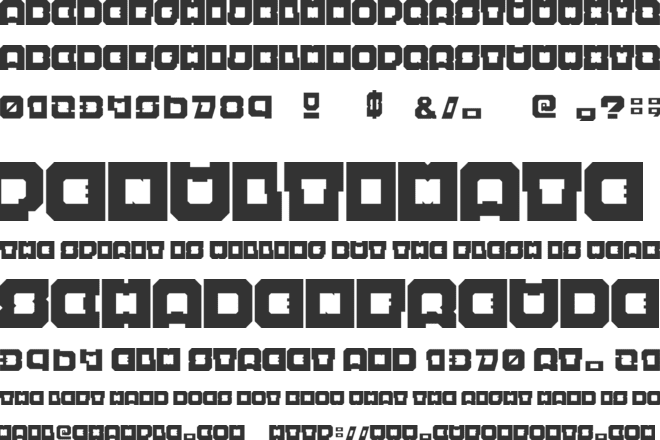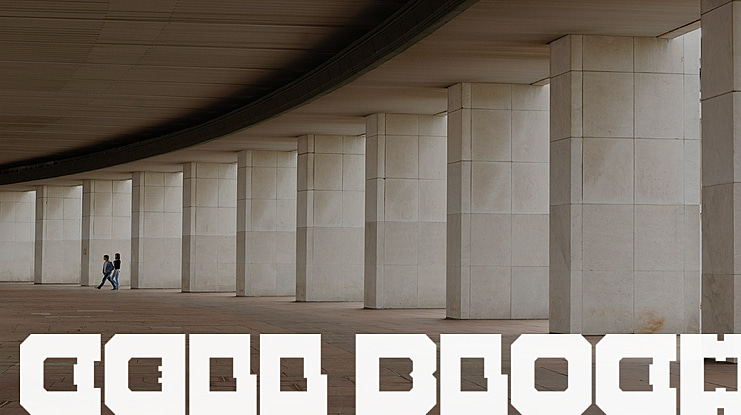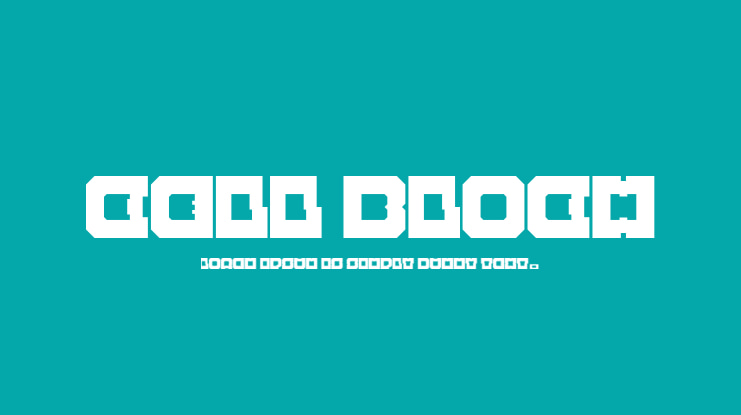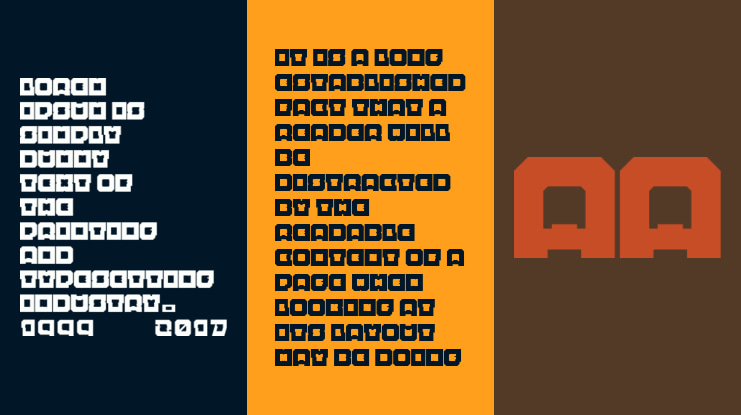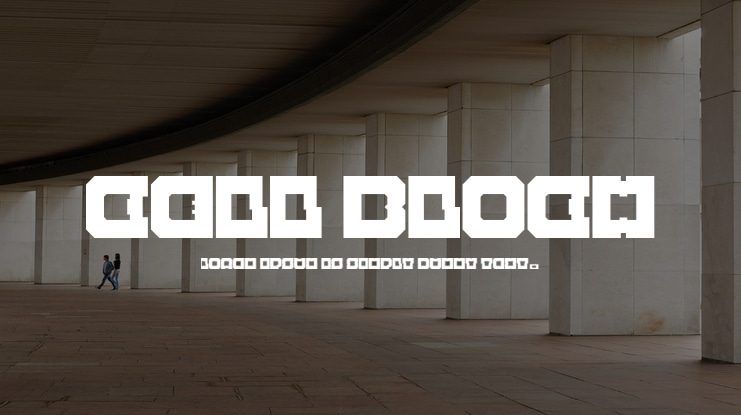
Cell Bloch Font
I designed this font as an homage to my love of 80's video games and worked hard on this font.
The letterforms are meant to take on an almost alien look and has a blocky retro tech computer feel best used for headlines.
Letters A thru Z, complete numerals, and some punctuation/extra characters are included.